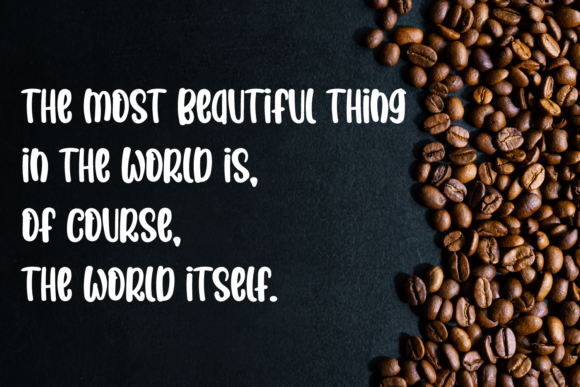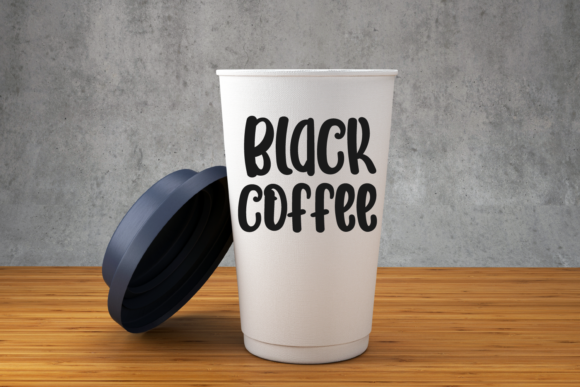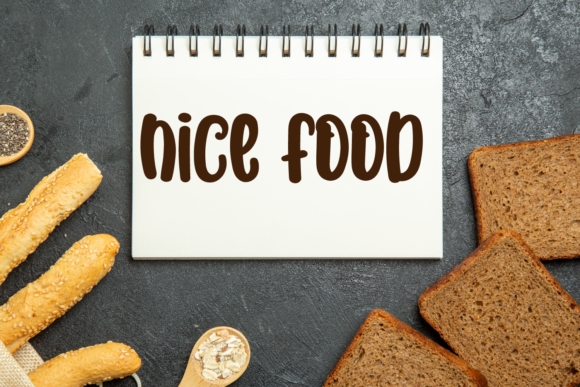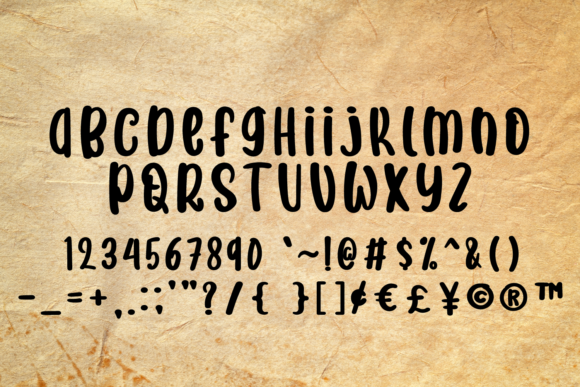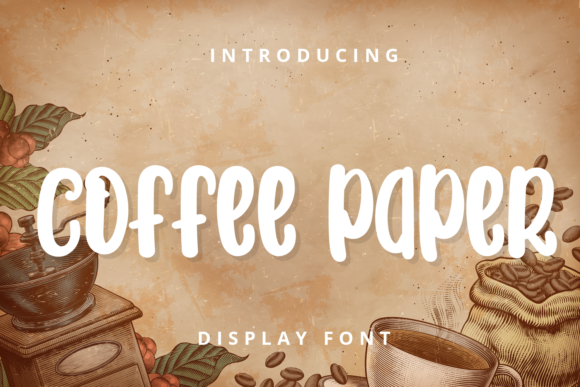
Coffee Paper Font: The Perfect Choice for Fun and Playful Designs
Are you a designer or crafter looking for a font that embodies playfulness and authenticity? Look no further than the Coffee Paper Font! This chic and fun display font is perfect for any children’s activity or school project that requires a touch of whimsy and charm.
What is Coffee Paper Font?
Coffee Paper Font is a unique and eye-catching display font that is designed to bring a sense of fun and playfulness to any design project. With its bold and expressive letters, this font is sure to capture the attention of your audience and leave a lasting impression.
Key Features of Coffee Paper Font
- Playful and Authentic: Coffee Paper Font embodies the spirit of playfulness and authenticity, making it perfect for designs that require a touch of whimsy and charm.
- Chic and Fun: This font is designed to be both stylish and fun, making it perfect for designs that require a bold and expressive look.
- Display Font: Coffee Paper Font is a display font, making it perfect for headlines, titles, and other design elements that require a bold and eye-catching look.
- Children’s Activities and School Projects: This font is perfect for children’s activities and school projects, such as worksheets, posters, and presentations.
Uses of Coffee Paper Font
Coffee Paper Font is a versatile font that can be used in a variety of design projects, including:
- Children’s Activities: This font is perfect for children’s activities such as worksheets, coloring pages, and activity sheets.
- School Projects: Coffee Paper Font is a great choice for school projects, such as presentations, posters, and reports.
- Party Invitations: This font is perfect for party invitations, such as birthday party invitations, baby shower invitations, and graduation party invitations.
- Signs and Banners: Coffee Paper Font can be used to create eye-catching signs and banners for events, sales, and promotions.
Benefits of Using Coffee Paper Font
There are several benefits to using Coffee Paper Font in your design projects, including:
- Unique and Eye-Catching: This font is unique and eye-catching, making it perfect for designs that require a bold and expressive look.
- Playful and Authentic: Coffee Paper Font embodies the spirit of playfulness and authenticity, making it perfect for designs that require a touch of whimsy and charm.
- Easy to Read: This font is easy to read, making it perfect for designs that require a clear and concise message.
- Versatile: Coffee Paper Font is a versatile font that can be used in a variety of design projects.
Tips for Using Coffee Paper Font
Here are some tips for using Coffee Paper Font in your design projects:
- Use it for Headlines and Titles: Coffee Paper Font is perfect for headlines and titles, as it is bold and eye-catching.
- Pair it with Other Fonts: This font can be paired with other fonts to create a unique and interesting look.
- Use it for Children’s Designs: Coffee Paper Font is perfect for designs that are intended for children, such as worksheets, coloring pages, and activity sheets.
- Experiment with Different Colors: This font can be used with a variety of colors to create a unique and eye-catching look.
Coffee Paper Font is a unique and eye-catching display font that is perfect for designs that require a touch of playfulness and authenticity. With its bold and expressive letters, this font is sure to capture the attention of your audience and leave a lasting impression. Whether you’re a designer or crafter, Coffee Paper Font is a great choice for any children’s activity or school project.